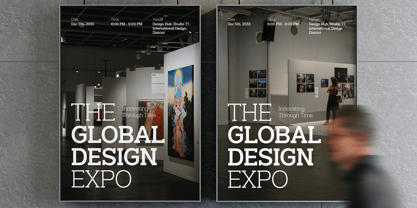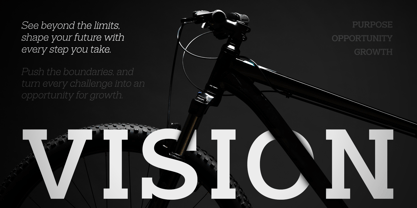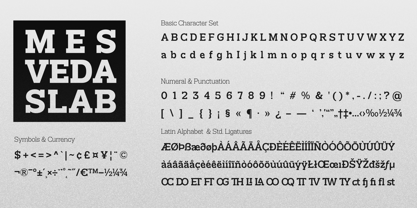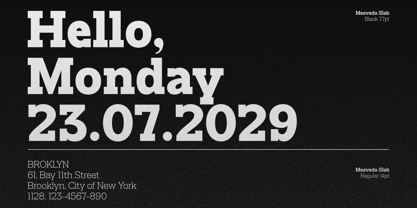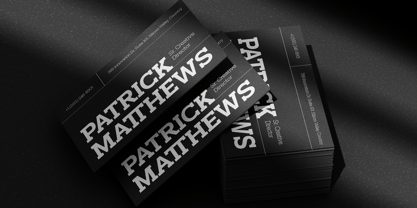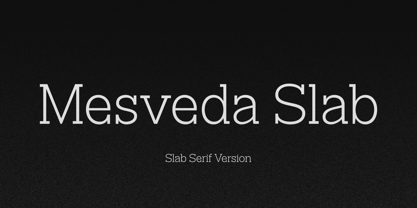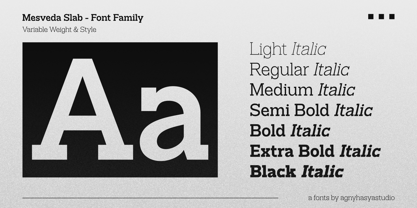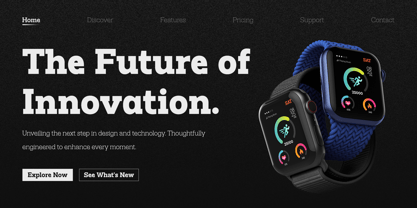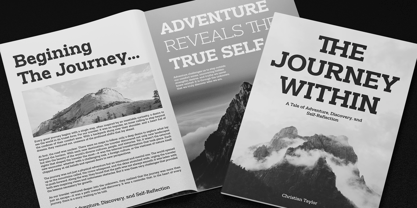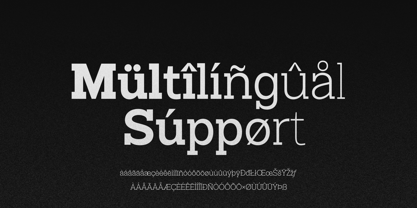
Mesveda Slab
by Agny Hasya Studio
The Mesveda Slab Font Family was designed by Firman Maulana and published by Agny Hasya Studio. Mesveda Slab contains 14 styles and family package options.
Mesveda Slab is an alternative version of Mesveda Sans, designed to embody the essence of clean, minimalist design with its sleek and refined features.
Mesveda Slab exemplifies simplicity, a clean, modern slab-serif font family with a minimalist aesthetic and straightforward style.
It is versatile and variable, offering 14 styles ranging from Light to Black, including italics.
The font includes uppercase and lowercase letters, numerals, punctuation, multilingual support, and a range of OpenType features.
Perfect for a wide range of design projects such as web design, UI design, logos, branding, advertising, product design, stationery, magazines,
book covers, photography, art quotes, wedding designs, fashion, special events, labels, packaging, and more.